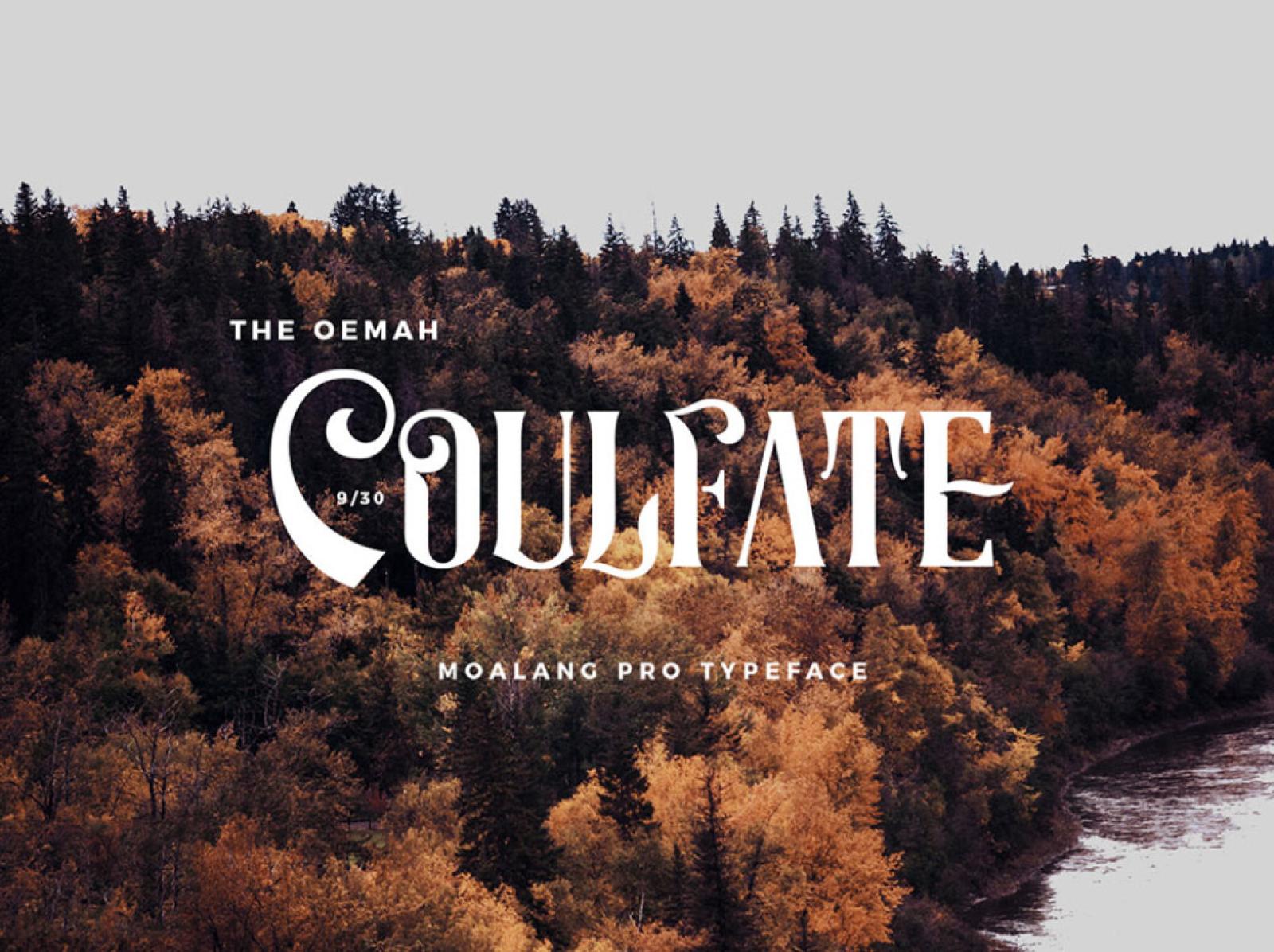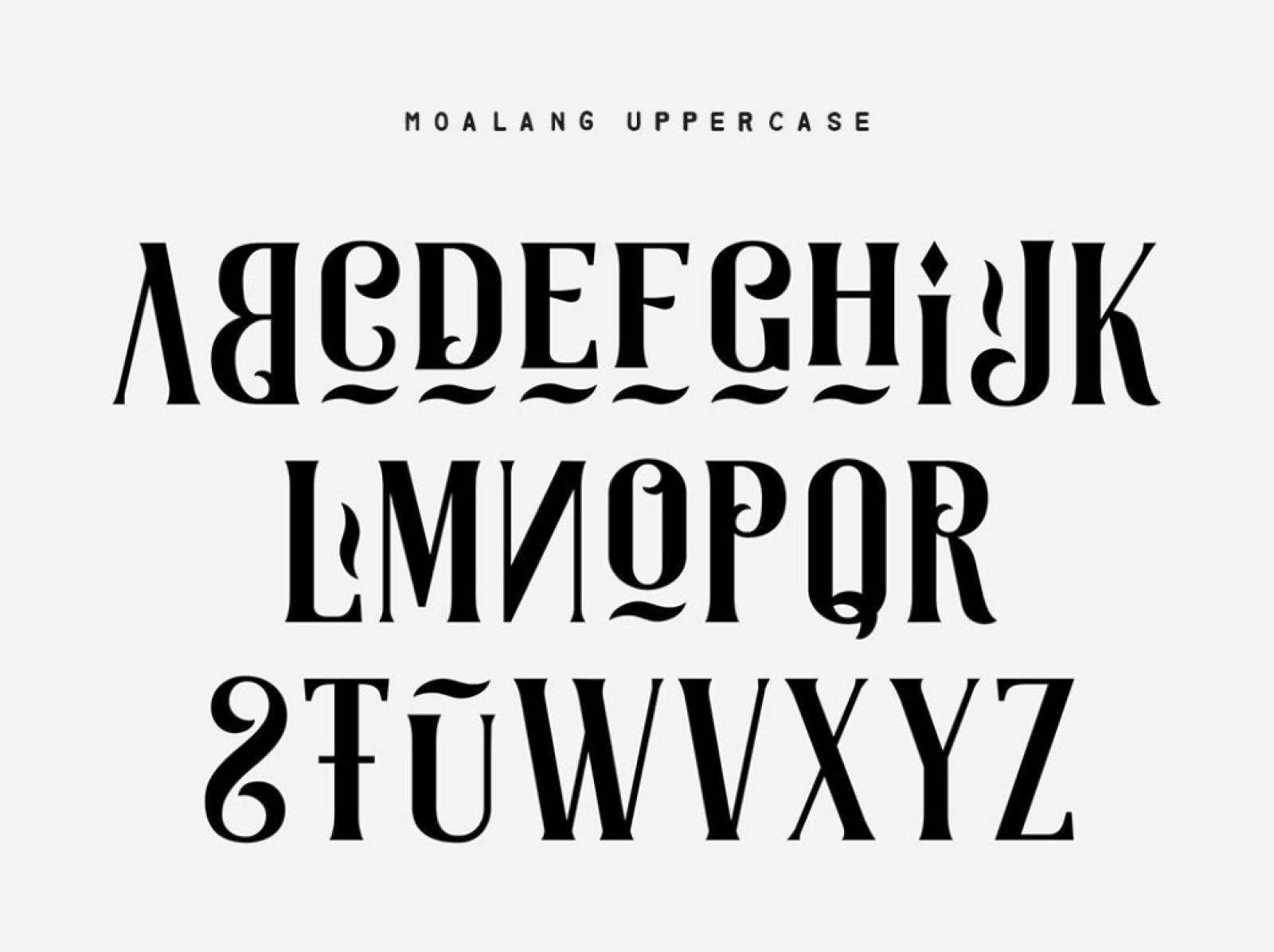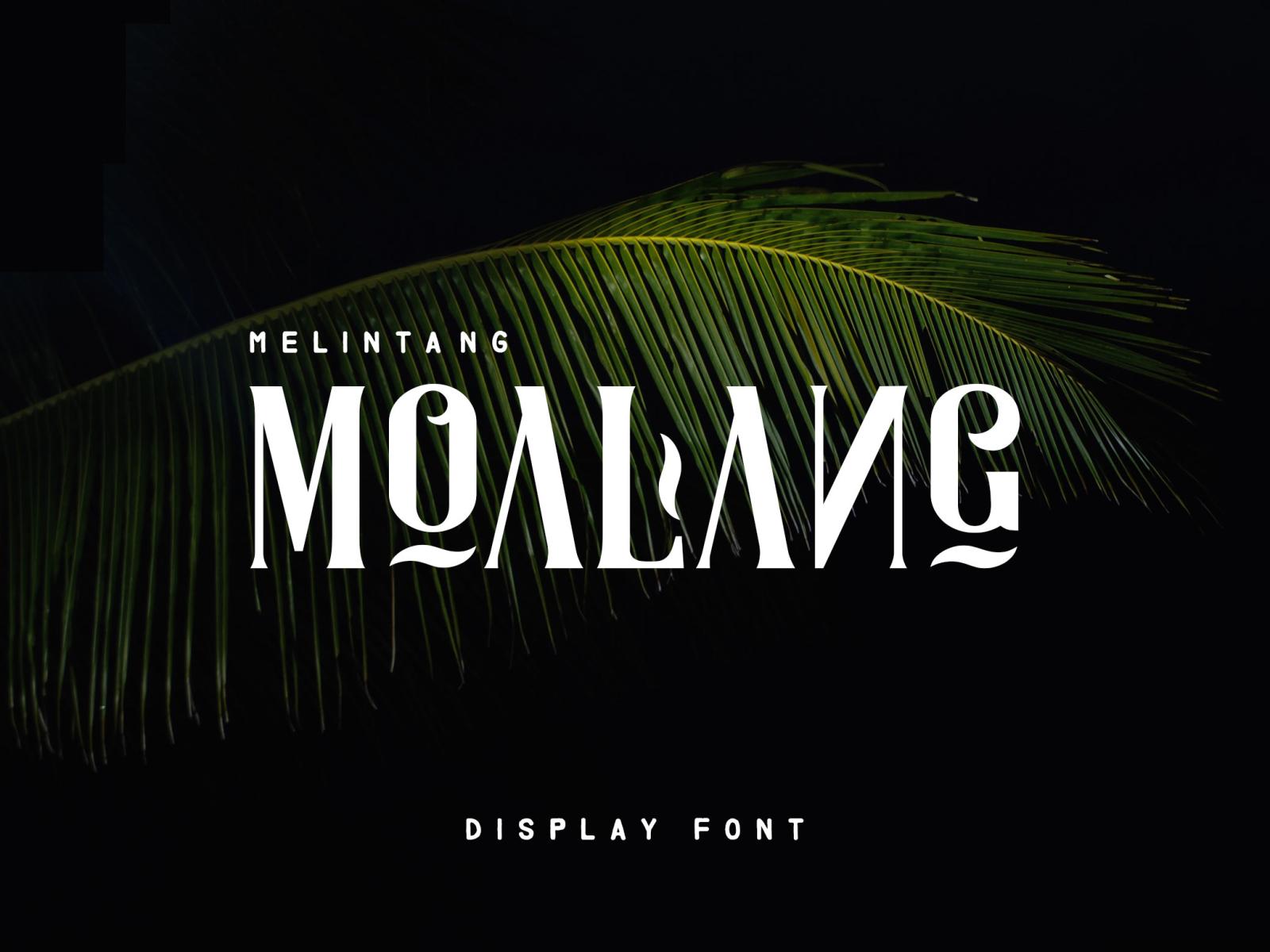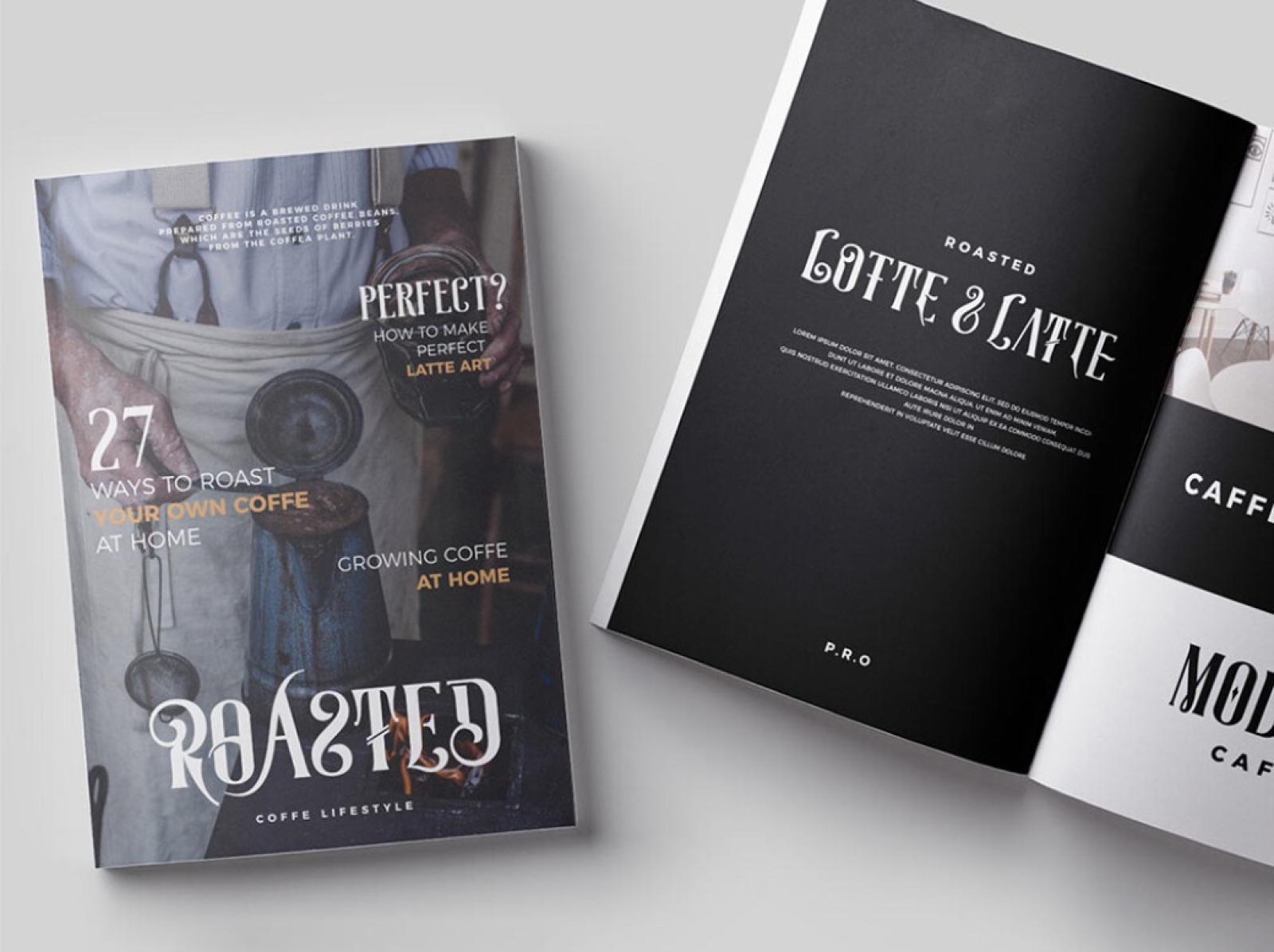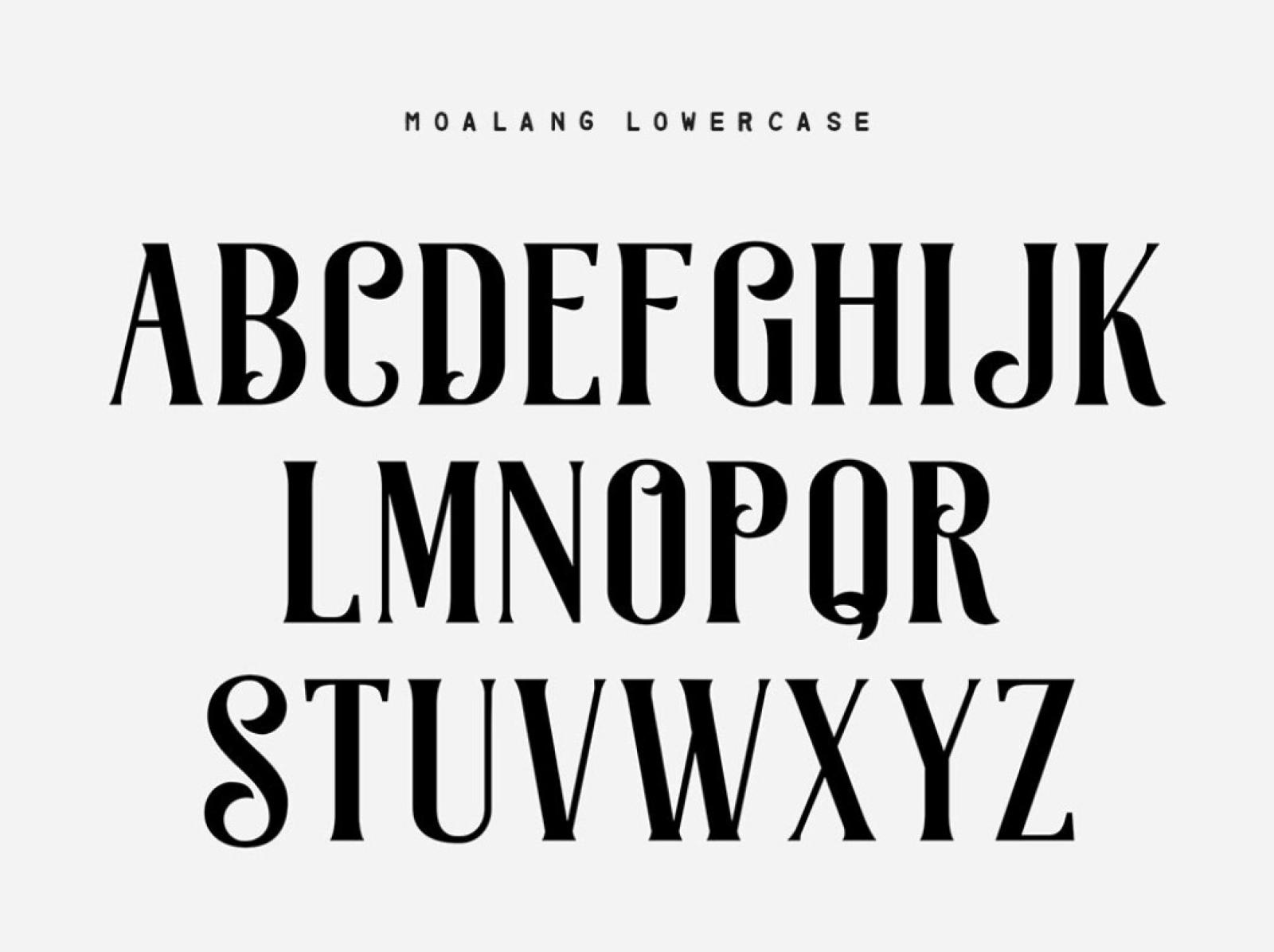
Moalang Display Font
Give up to the charm of artistic curves expressed by this display font. Each character possesses its own incredible features, charging any project with decorative power, aimed at attention catching.
As soon as you start working with this font, you'll, probably, won't stop discovering its advantages. Supreme for any kind of project, Moalang will look astounding on your invitations or business cards. Its delicate vibes will be a splendid addition to branding or logo concepts. Finally, any web design will become ten times better with it numerous benefits!